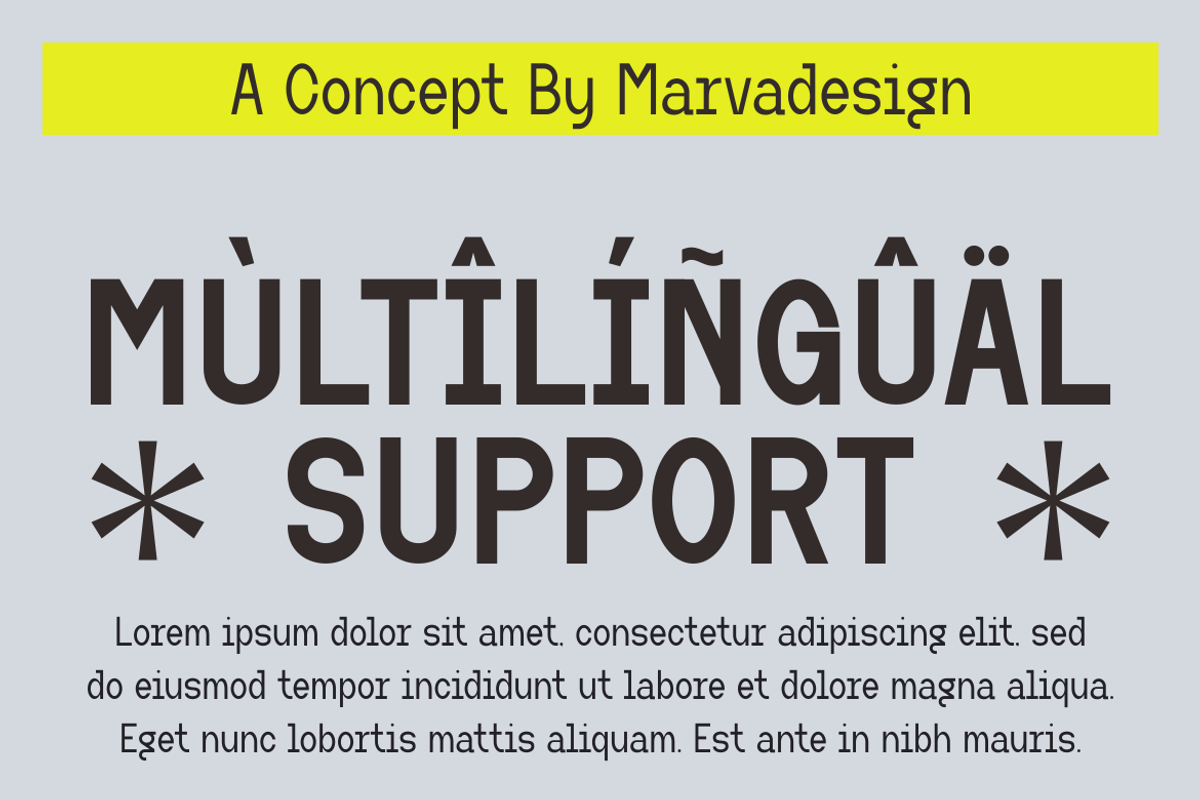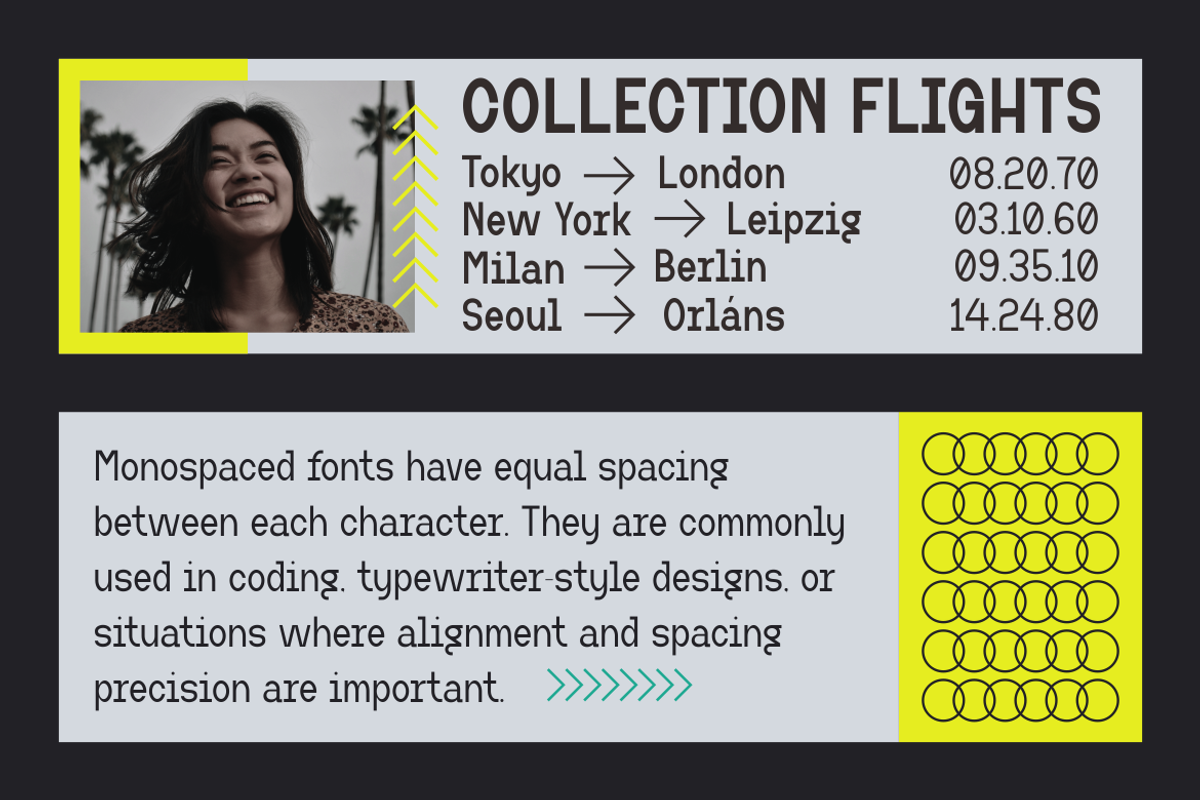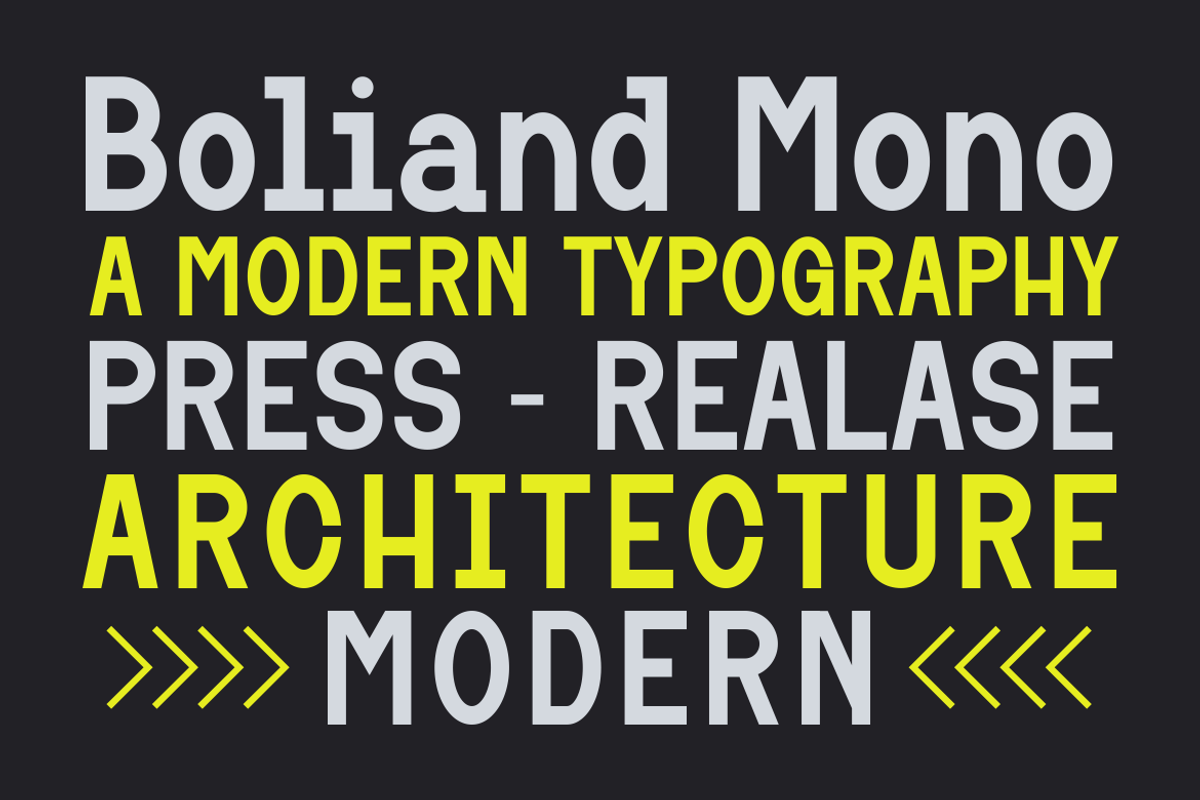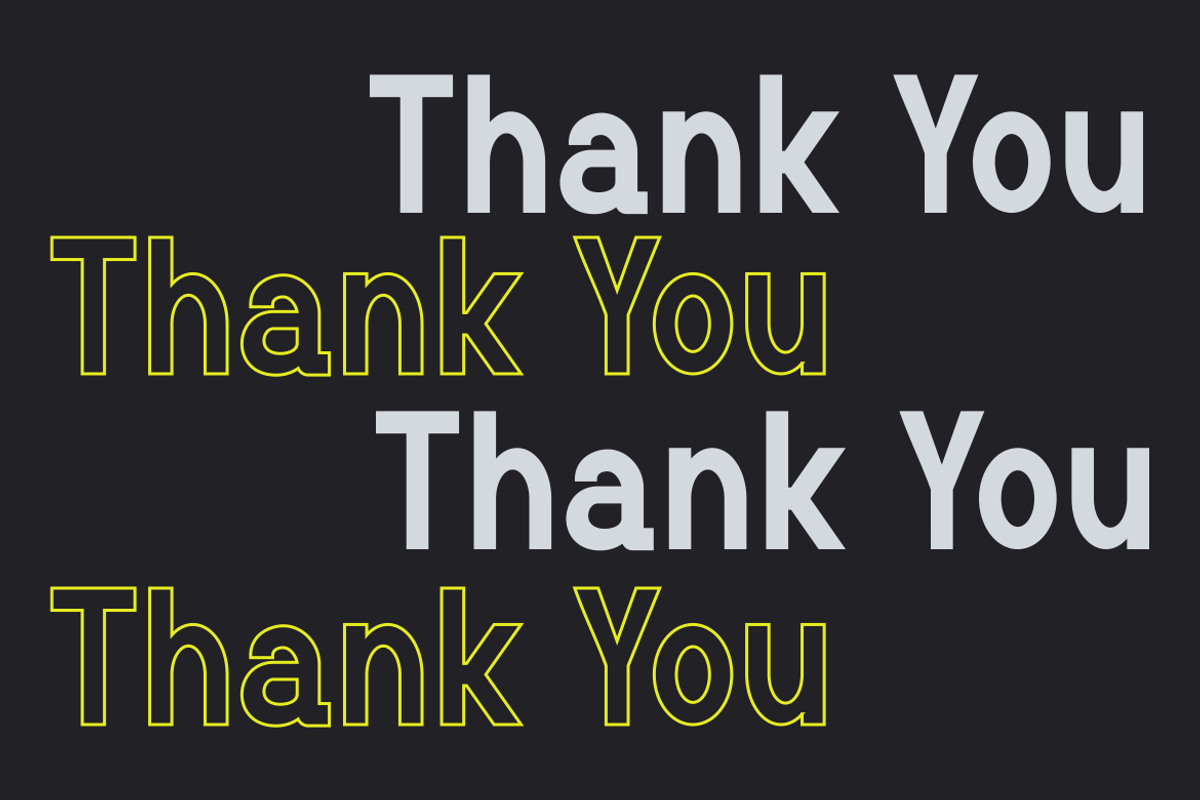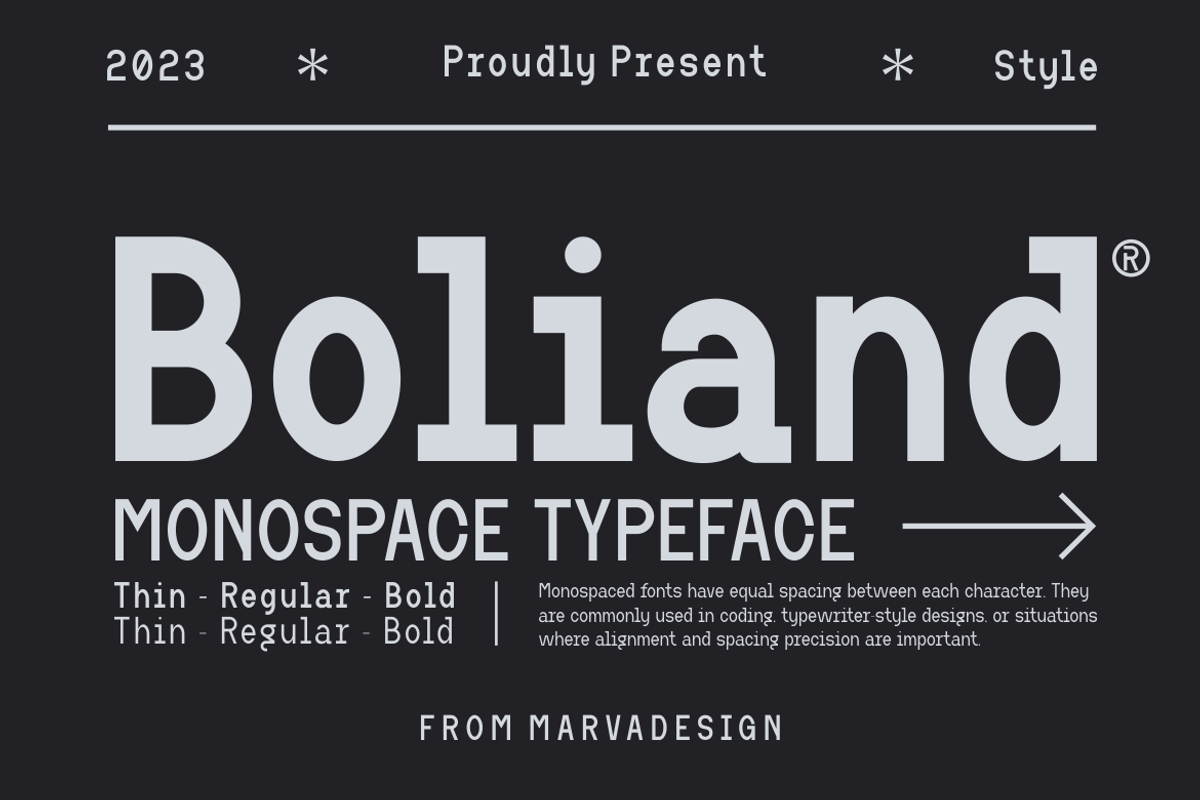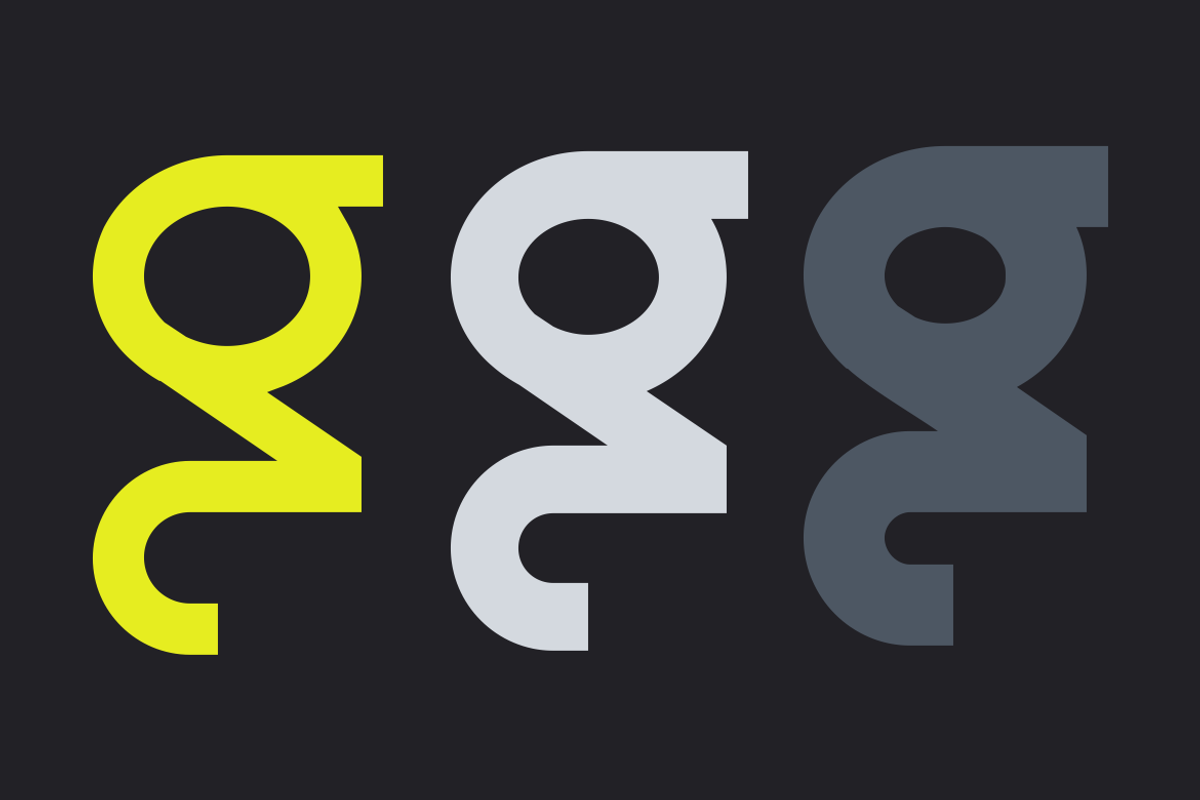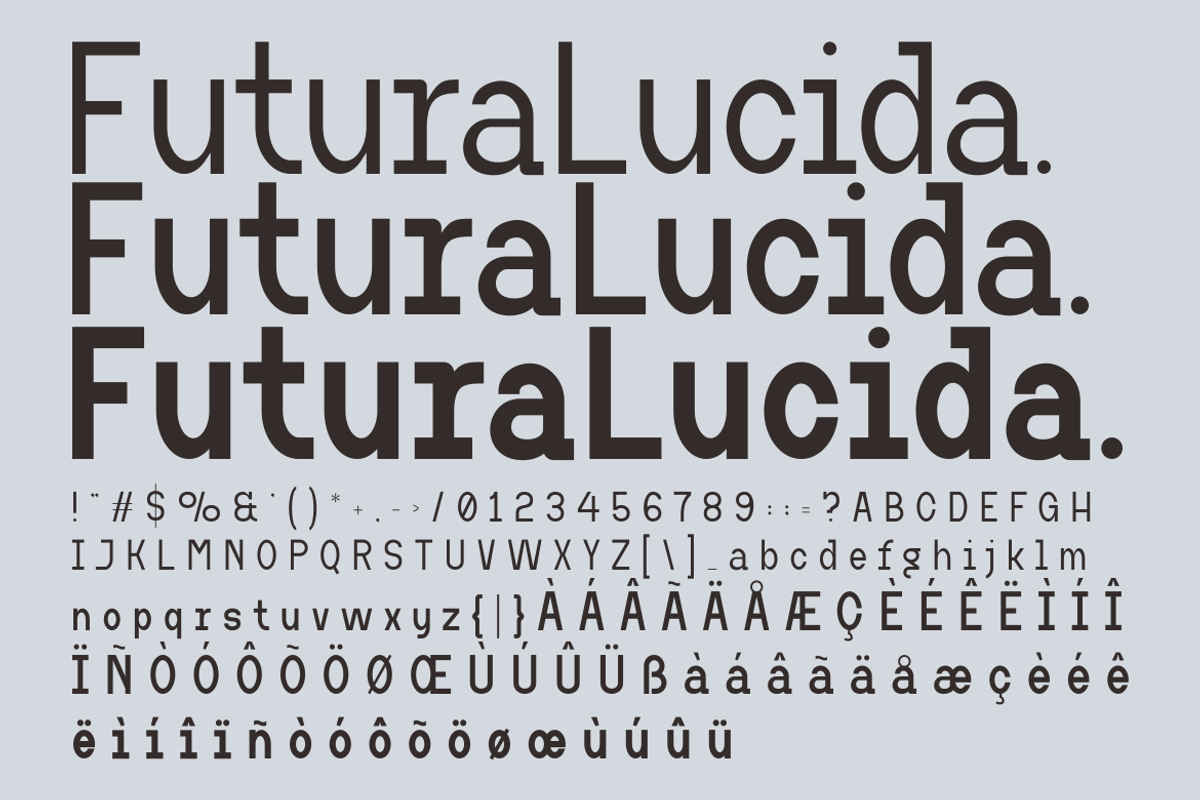
Boliand - A Modern Monospace Font
Introducing our new product Boliand Font - Modern Font Boliand Font** - Modern Font is a bold and authentic display font. The font is suitable for any branding project like logo,Template Design, Product and many more. outstanding in a wide range of contexts.